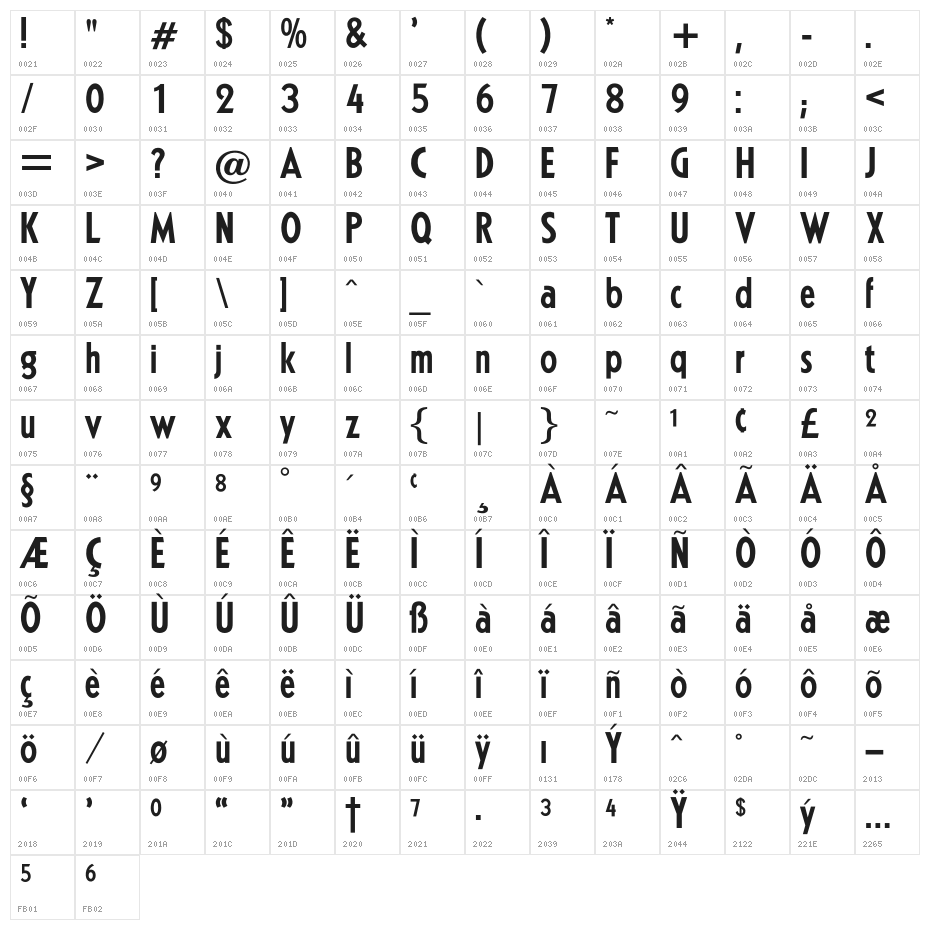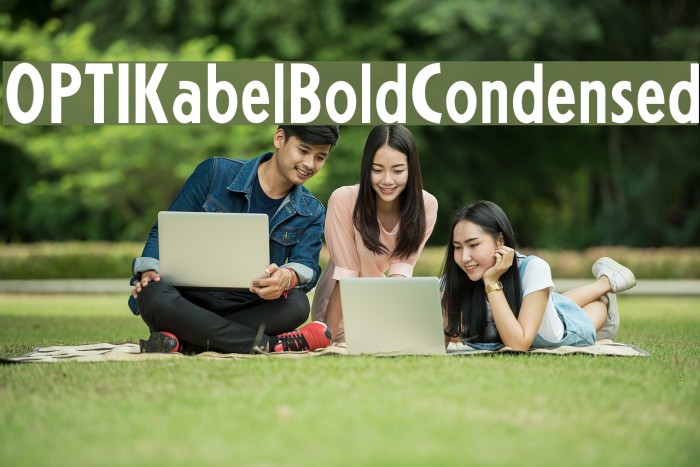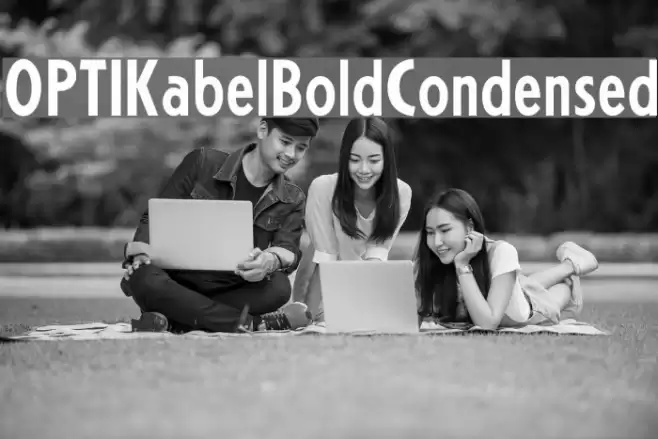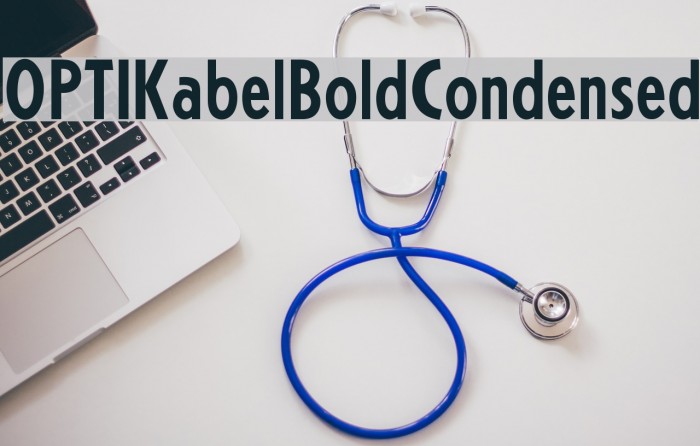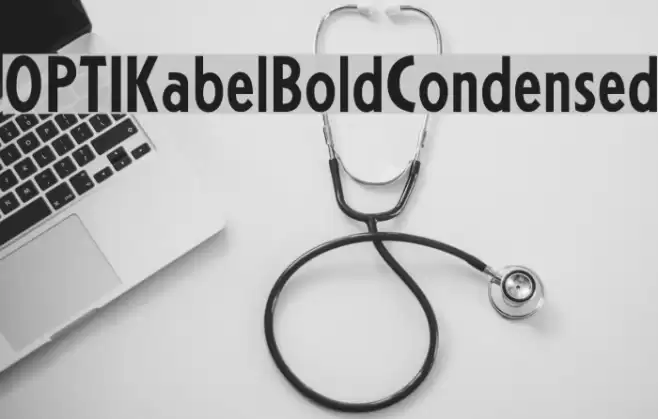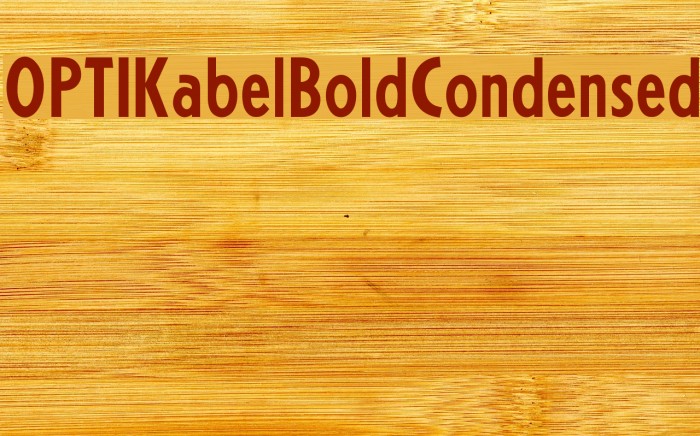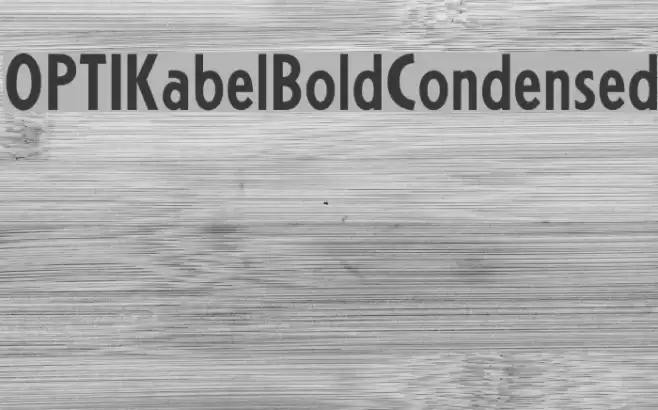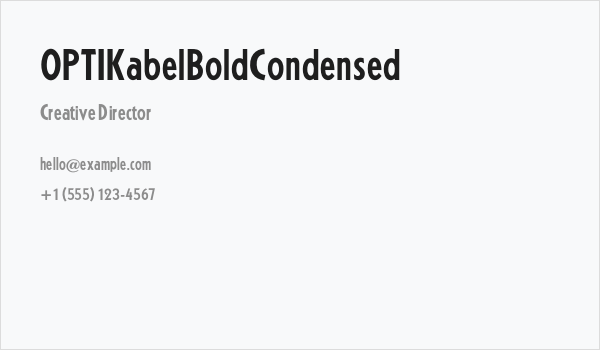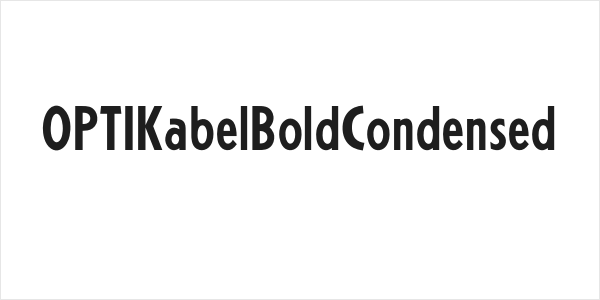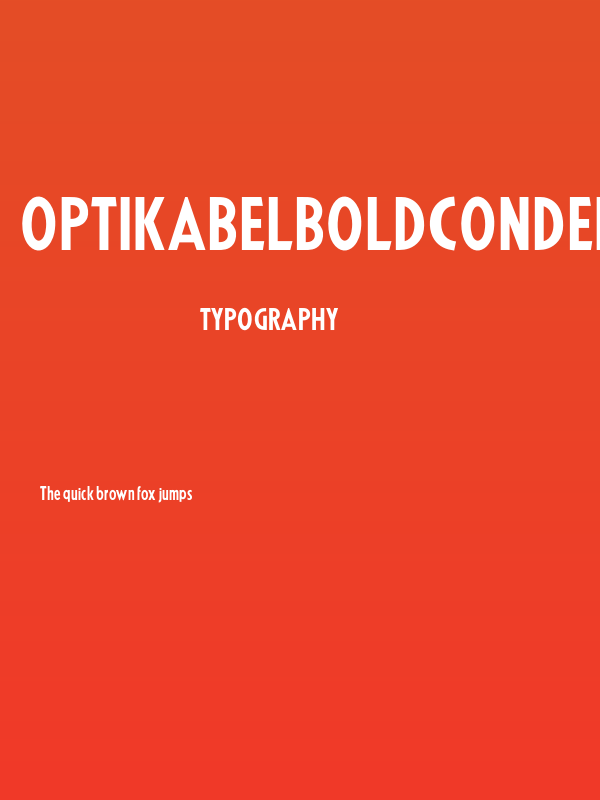
OPTIKabelBoldCondensed Font
OPTIKabelBoldCondensed Description
This font features bold, condensed letterforms with a strong presence, making it ideal for impactful headlines and titles. The characters are designed with a modern aesthetic, featuring clean lines and a uniform stroke width that enhances readability. The uppercase and lowercase letters maintain a consistent style, while the numerals and special characters are crafted to complement the overall design. The condensed nature of the font allows for efficient use of space, making it suitable for various design applications where space is a constraint.
| Proposed Projects | Ideal for posters, headlines, branding, and advertising materials where a strong visual impact is desired. |